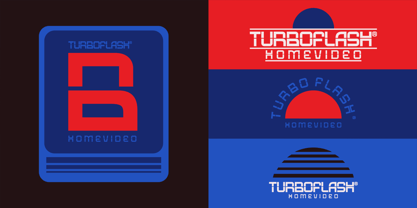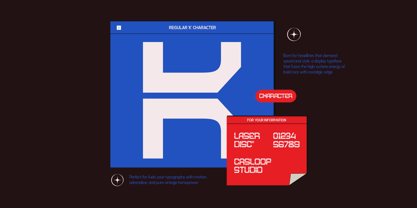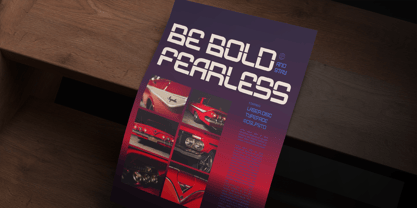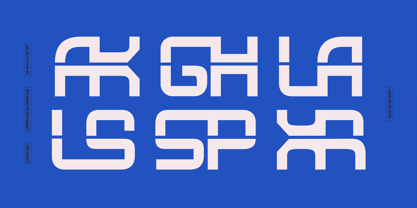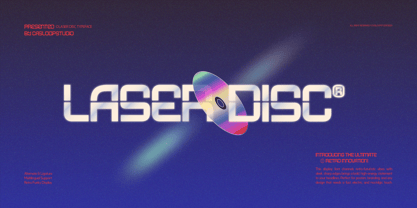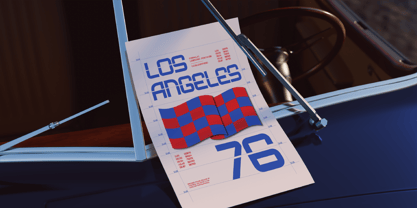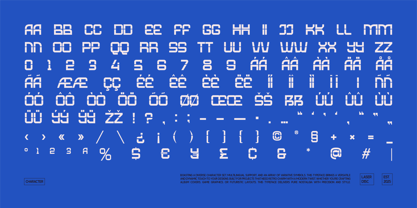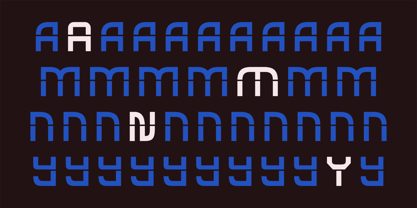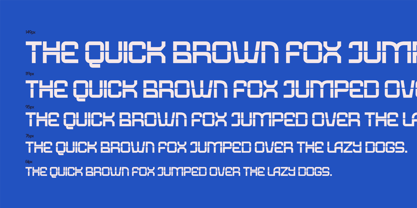
Laser Disc
by Casloop Studio
The Laser Disc Font Family was designed by Wantara Putra and published by Casloop Studio. Laser Disc contains 1 styles. More about this family
Laser Disc: Retro-Futuristic Typeface for Bold Visuals
Laser Disc is a high-energy typeface that blends nostalgic retro aesthetics with a futuristic edge. Its modular and geometric structure, combined with sleek, slanted letterforms, creates a bold statement in any design. Whether you're crafting album covers, gaming interfaces, or branding that demands a unique presence, Laser Disc delivers a dynamic and electric look.
Features
• Retro-futuristic letterforms inspired by vintage tech and digital aesthetics
• Sharp, high-contrast design with slanted & aggressive shapes
• Multiple weights and styles for maximum versatility
• Alternate characters and ligatures for creative customization
• Full multilingual support with extended characters
Laser Disc is built for designs that demand speed, energy, and a strong visual identity. Whether you're working with neon-lit aesthetics or modern, high-tech visuals, this typeface ensures your work stands out.
Designers: Wantara Putra
Foundry: Casloop Studio